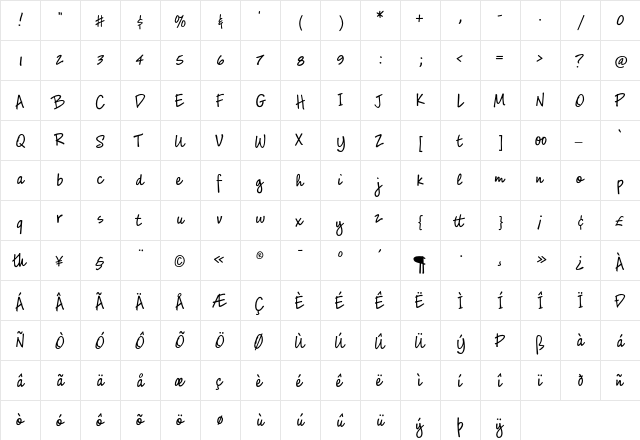
GracesHand Alternates Font Preview
GracesHand Alternates
Design Context for GracesHand Typeface
GracesHand flows with the natural rhythm of handwritten lettering, making it ideal for designs that call for warmth and personal expression.
Font Pairing: Combine GracesHand with a simple geometric sans for maximum contrast — the tension between flowing curves and clean structure is a classic typographic pairing.
Pro Tip: Pair GracesHand with a clean sans-serif for supporting text. The contrast between fluid script and geometric structure creates an elegant typographic hierarchy.